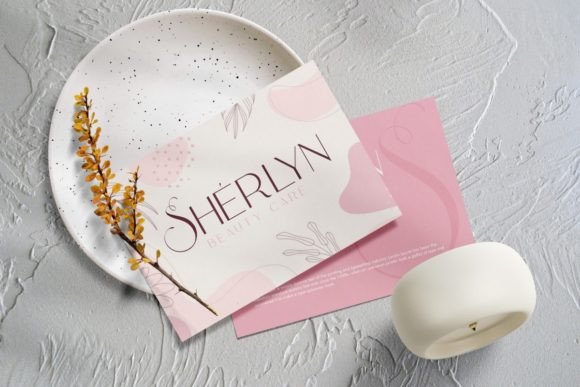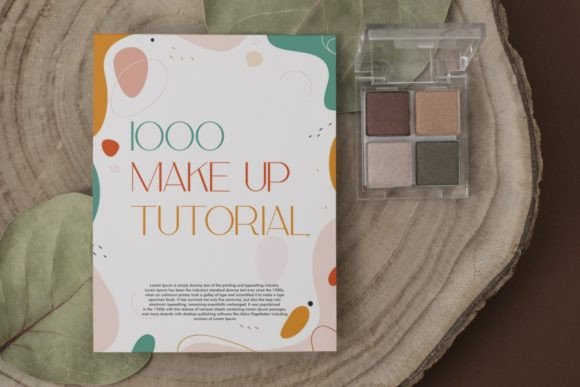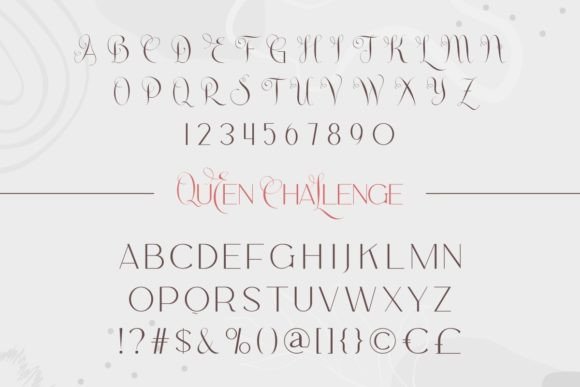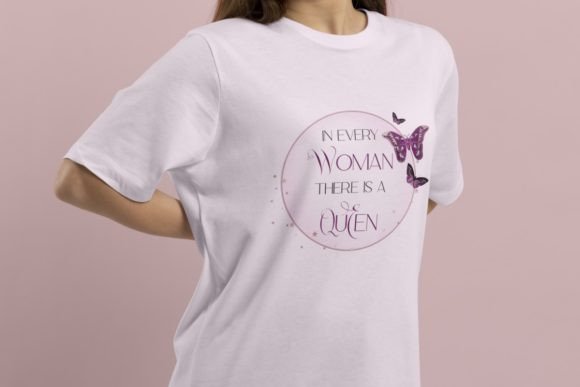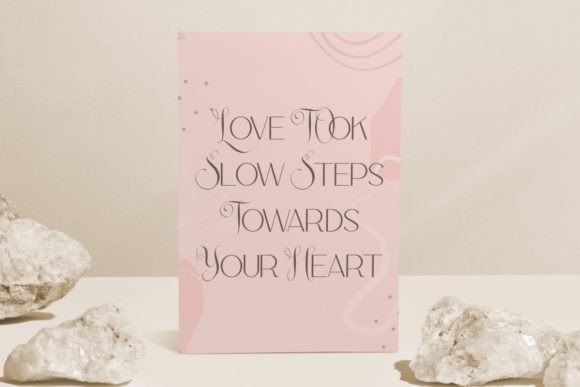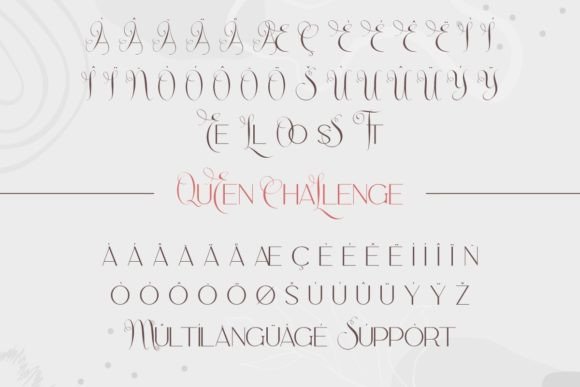
Introduction to Queen Challenge Font
Have you ever stared at a blank canvas, waiting for inspiration to strike, only to have a single font spark an entire creative project? For designers, this moment is pure magic. It’s the moment when a simple character can elevate an entire design from good to great. For me, that font was the Queen Challenge Font – a luxurious serif font with a beautiful style that instantly elevates any design.
Whether you’re working on a high-quality business card, a custom label, or a web page, the Queen Challenge Font is a versatile design resource that’s sure to impress. With its transparent background and stunning typography, this font is perfect for designers who crave a little extra flair in their creative projects. And the best part? You can download it for free, making it an accessible resource for designers of all levels.
Key Features of Queen Challenge Font
- Unique, hand-drawn design perfect for creative projects and artistic expressions.
- Available in a high-quality, transparent background for seamless integration with any design.
- Font size: 1000 characters, with a resolution of 300 DPI for crisp and clear display.
- Perfect for designers and artists looking for a bold, statement-making font to elevate their work.
- Unique characteristics include a mix of cursive and bold lettering, making it ideal for quotes, titles, and headings.
Honest Review: Queen Challenge Font
I recently stumbled upon the Queen Challenge Font, and I must say it’s a fantastic addition to my design resource collection. This font is perfect for those who want to add a touch of elegance and sophistication to their creative project.
- High quality design: The Queen Challenge Font is well-crafted and has a unique, regal feel to it.
- Transparent background: This makes it easy to use in a variety of design scenarios, from logos to social media graphics.
However, I do have one limitation to note:
⚠️ The font may not be suitable for all types of projects, particularly those that require a more playful or casual tone.
Overall, I’m really impressed with the Queen Challenge Font. It’s a solid design resource that’s perfect for those who want to add a touch of sophistication to their creative project.
Tips for Getting the Most Out of the Queen Challenge Font
Use the Queen Challenge Font in combination with other design resources, such as graphics and images, to create unique and eye-catching designs.
The Queen Challenge Font is ideal for creative projects, such as:
- Logos and business cards
Alternatives to Queen Challenge Font
Great Vibes is a beautiful, cursive script font ideal for creative projects that require a touch of elegance. It’s perfect for use on a transparent background to create a stunning visual effect.
When to use: Wedding invitations, fashion designs, and other projects that need a sophisticated, high-quality look.
Comparison to Queen Challenge Font: While Queen Challenge Font is more playful and energetic, Great Vibes Font is more refined and sophisticated, making it a great choice for projects that require a more mature tone.
Alex Brush is a handwritten font that’s perfect for designers who want to add a personal touch to their creative project. It’s available for free download and can be used on a transparent background to create a unique visual effect.
When to use: Blog posts, social media graphics, and other projects that need a personal, handwritten touch.
Comparison to Queen Challenge Font: While Queen Challenge Font is more dramatic and attention-grabbing, Alex Brush Font is more subtle and understated, making it a great choice for projects that need a more laid-back tone.